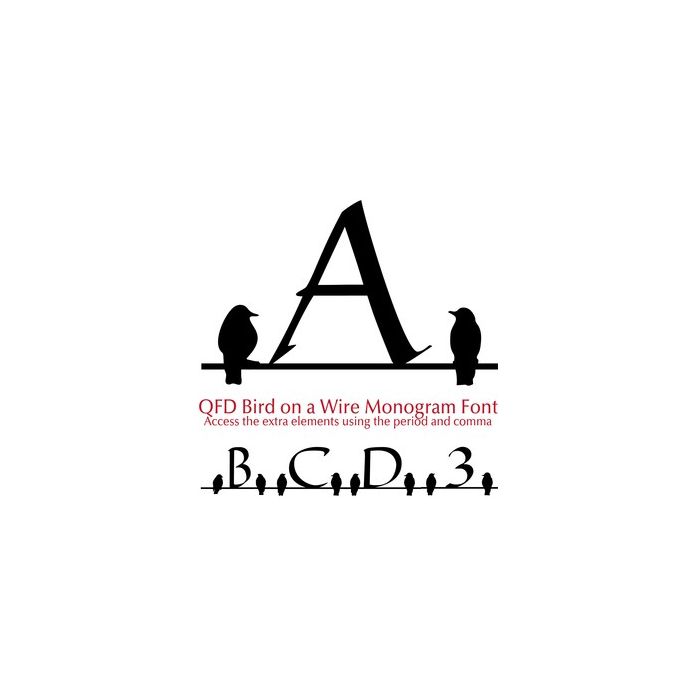
Perfect for gift tags, cards, pillows, invitations, wall art, t-shirts, mugs and anything else you can think of. Use the period and comma to access two bird on a wire variations. Move the monograms till the wires overlap to create words!